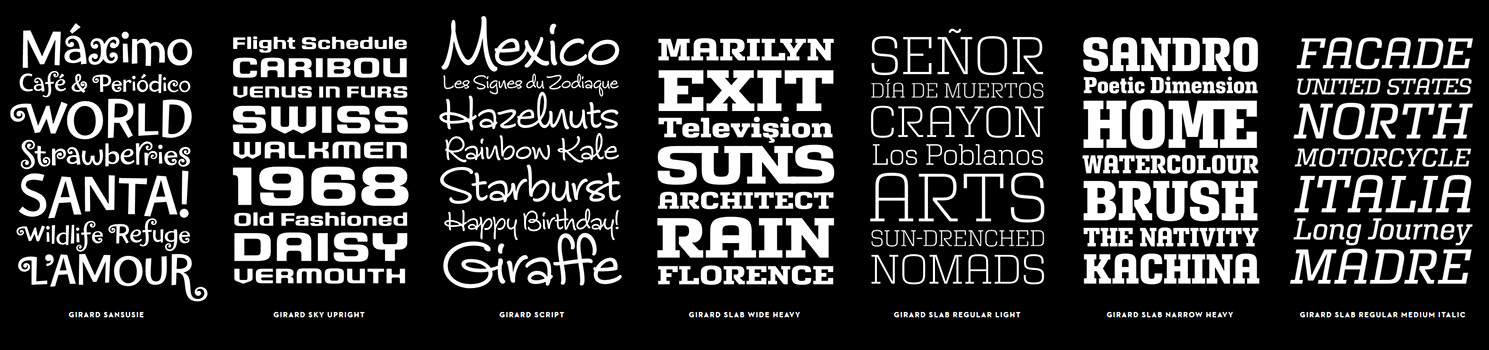
Girard Fonts Families
Girard Fonts Families is ideal for comprehensive brand identity systems, extensive editorial projects, multi-format corporate communications, diverse publication layouts, complete signage systems, comprehensive digital platforms, family-oriented marketing campaigns, systematic visual documentation, large-scale design projects, and unified typographic ecosystems.
What makes Girard Fonts Families so exciting is its exceptional provision of complete typographic harmony and systematic design consistency that enables designers to create cohesive visual experiences across unlimited applications and diverse communication needs. This comprehensively developed font collection features multiple complementary typefaces with unified design principles and systematic character relationships that immediately convey professional completeness, design sophistication, and the powerful advantage of typographic family consistency. The fonts' coordinated construction and systematic aesthetic create an instant sense of design mastery and comprehensive planning, making it ideal for projects that need to communicate systematic excellence, family unity, and the transformative power of consistent design language to audiences seeking comprehensive solutions and meaningful brand coherence across diverse touchpoints.
The Girard Fonts Families collection typically includes multiple complementary weights and comprehensive styles, often featuring serif, sans-serif, and display variations along with corresponding italic versions and specialized applications. Font family collections frequently offer extensive character sets including advanced OpenType features, multiple language support, and specialized symbols that ensure optimal typography across complex multi-format communication requirements and comprehensive design system applications.
The family-oriented nature of Girard Fonts Families makes it particularly effective for large-scale projects where maintaining visual unity and systematic consistency are essential for professional credibility and brand recognition. System designers and brand strategists will find this font collection especially valuable for comprehensive projects that must establish consistent visual authority across multiple applications while supporting diverse content requirements and complex communication hierarchies.
What distinguishes Girard Fonts Families is its remarkable ability to provide complete typographic solutions while maintaining individual character within each family member. This systematic characteristic makes it suitable for both unified brand applications requiring perfect consistency and diverse creative communications where family harmony and individual expression must coexist seamlessly.
Professional designers recognize that Girard Fonts Families brings invaluable systematic completeness to projects across industries including comprehensive branding, multi-format publishing, large-scale corporate communications, and systematic design consulting. Its family character and comprehensive appeal make it essential for organizations seeking complete typographic solutions that will provide consistent performance and professional unity across all contemporary communication challenges.
The thoughtfully coordinated design of Girard Fonts Families ensures optimal systematic performance across all family-focused communication applications.